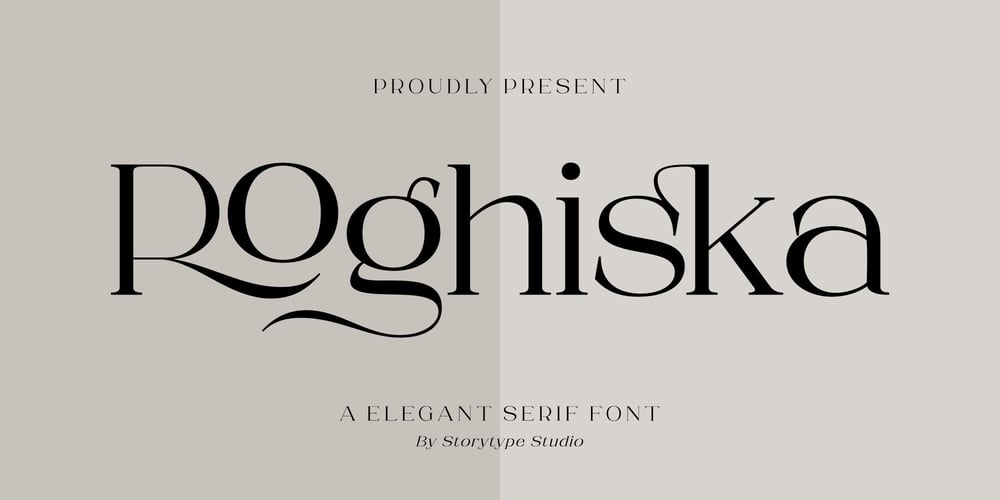
Roghiska
Roghiska font
Roghiska Font Family was designed by Heru Utama Putra and published by Letterena Studios. Roghiska contains 2 styles and family package options. A serif modern and classic typeface that has its own unique style & modern look.This typeface is perfect for an elegant & luxury logo, book or movie title design, fashion brand, magazine, clothes, lettering, quotes, and so much more.